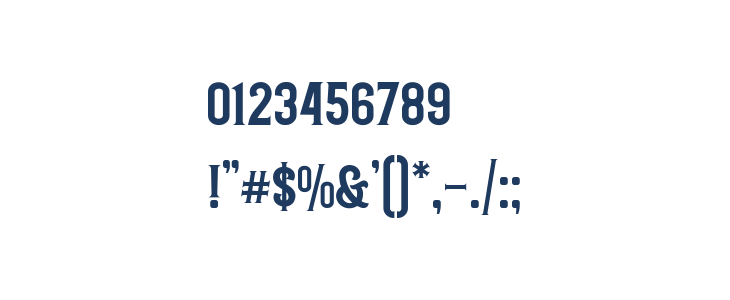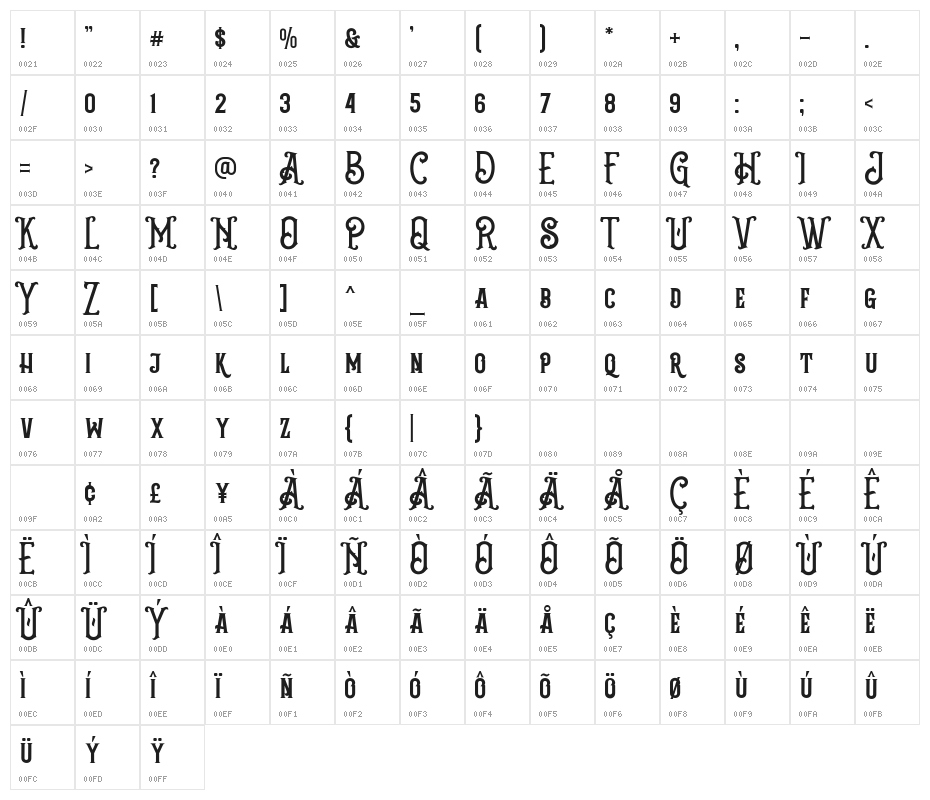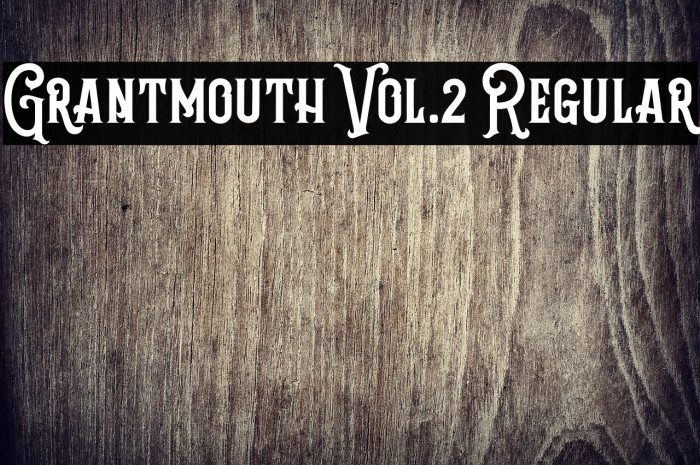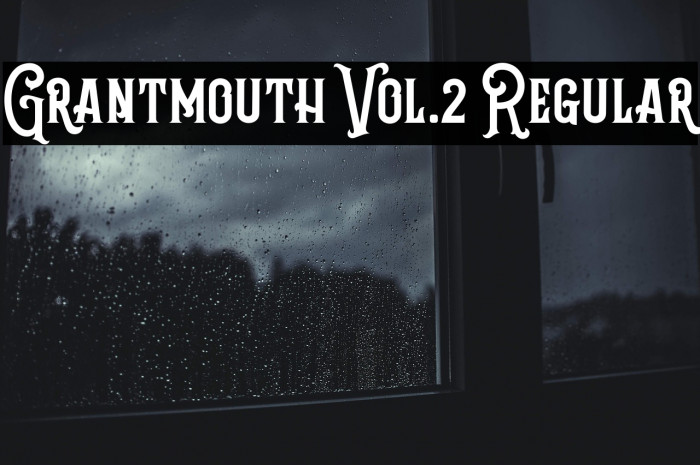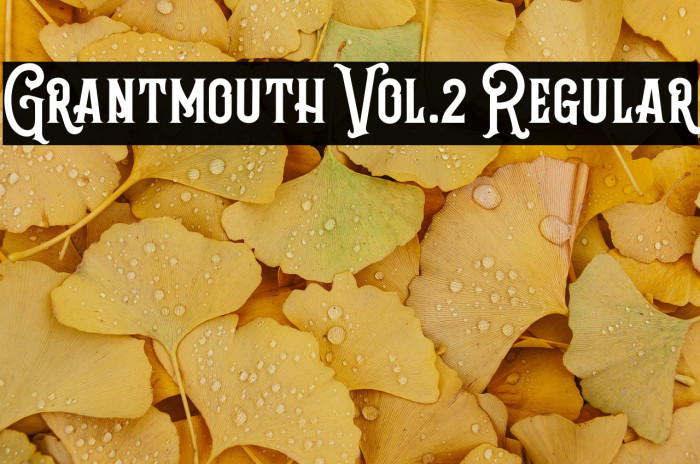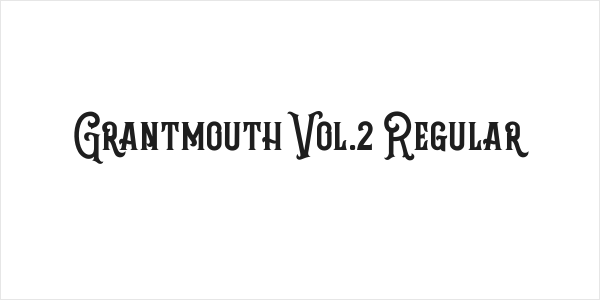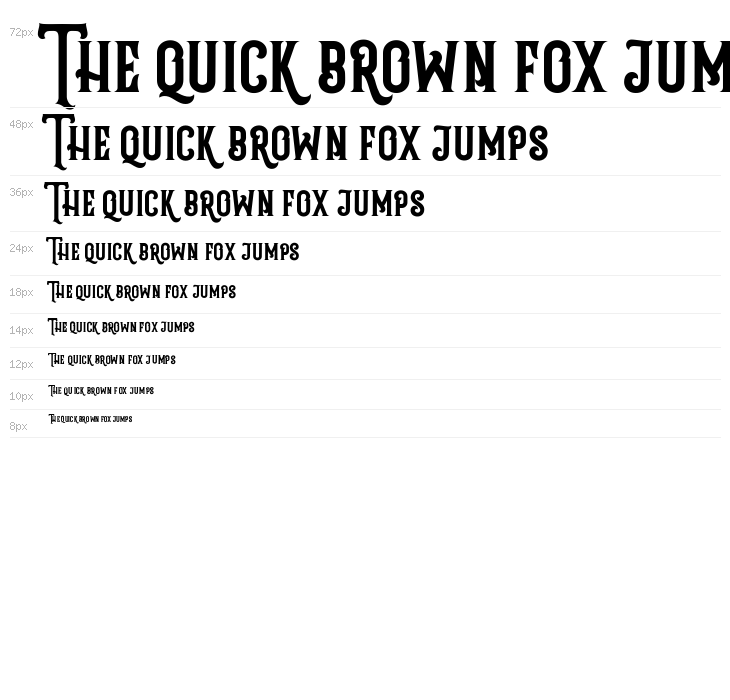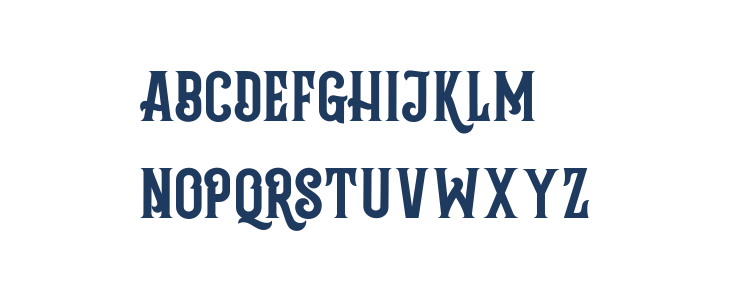
Grantmouth Vol.2 Regular Font
Grantmouth Vol.2 Regular Description
This font features a bold and decorative style with intricate details that give it a vintage and ornamental appearance. The uppercase letters are particularly elaborate, with unique flourishes and curves that add a sense of elegance and drama. The lowercase letters maintain a consistent style, complementing the uppercase with slightly less ornamentation. Numbers and special characters are designed to match the overall aesthetic, ensuring a cohesive look across all text elements. The font's bold weight and high contrast between thick and thin strokes make it stand out, ideal for eye-catching designs.
| Use Case | Headlines, Logos, Decorative text |
| Proposed Projects | Ideal for vintage-themed posters, logos, branding, and decorative headlines. |